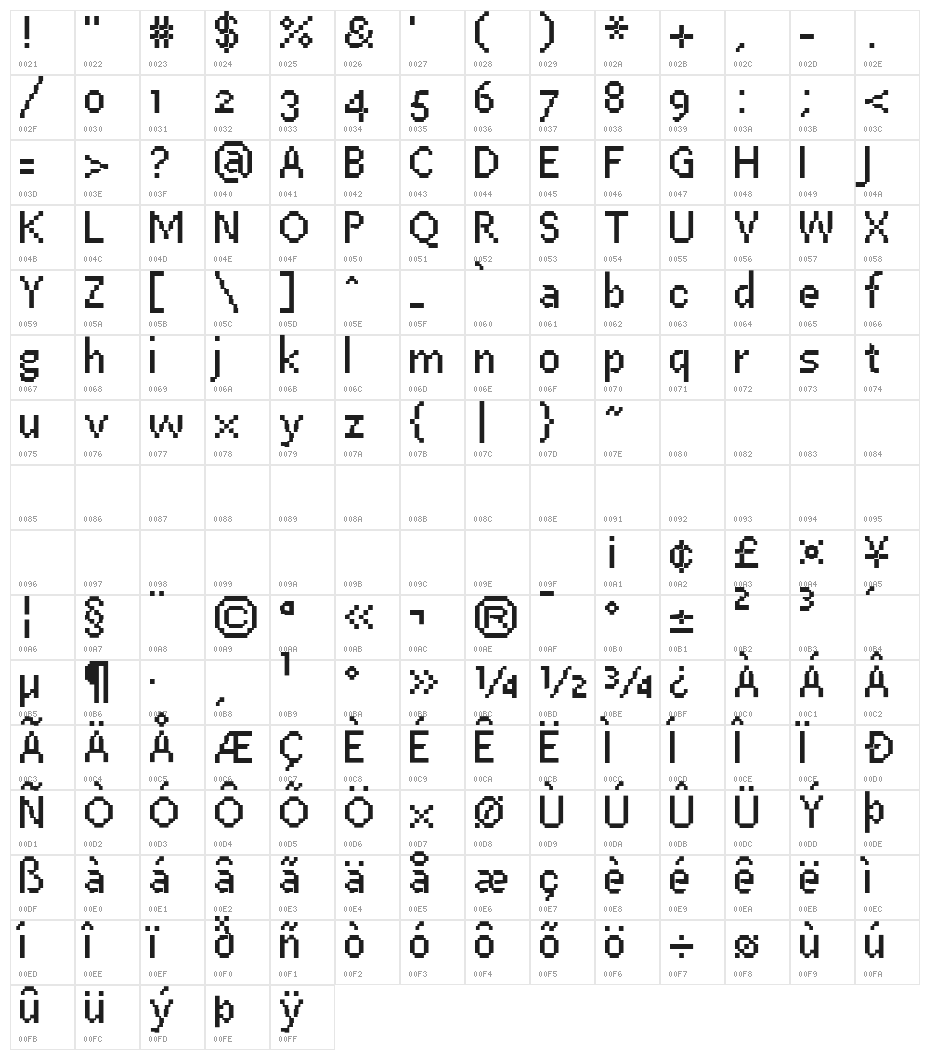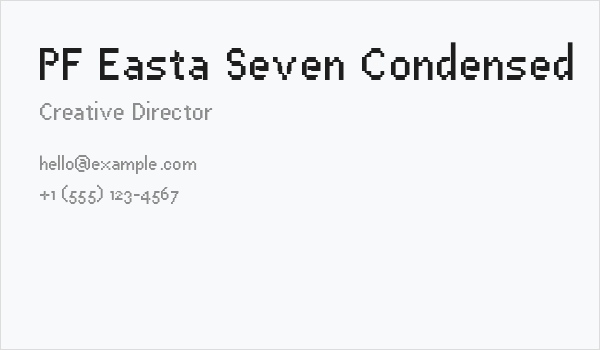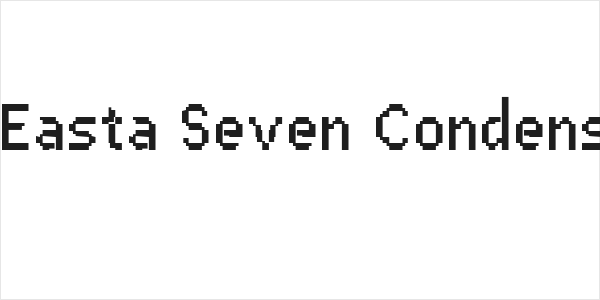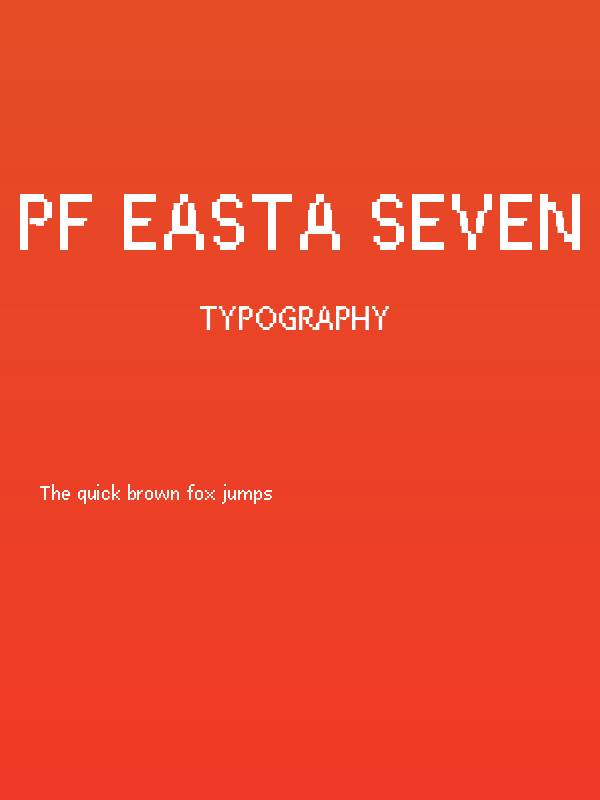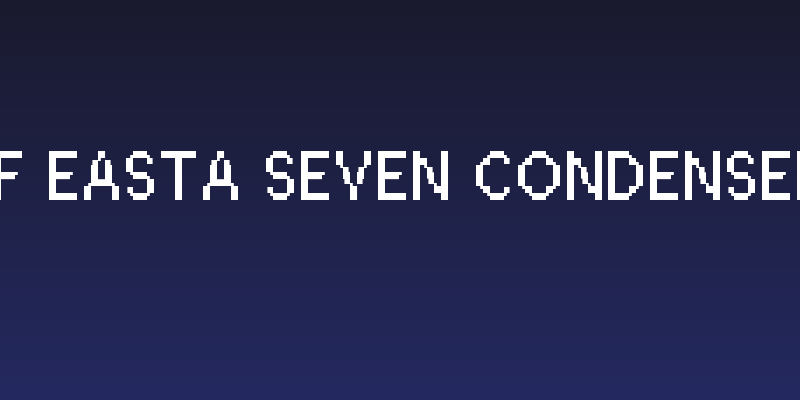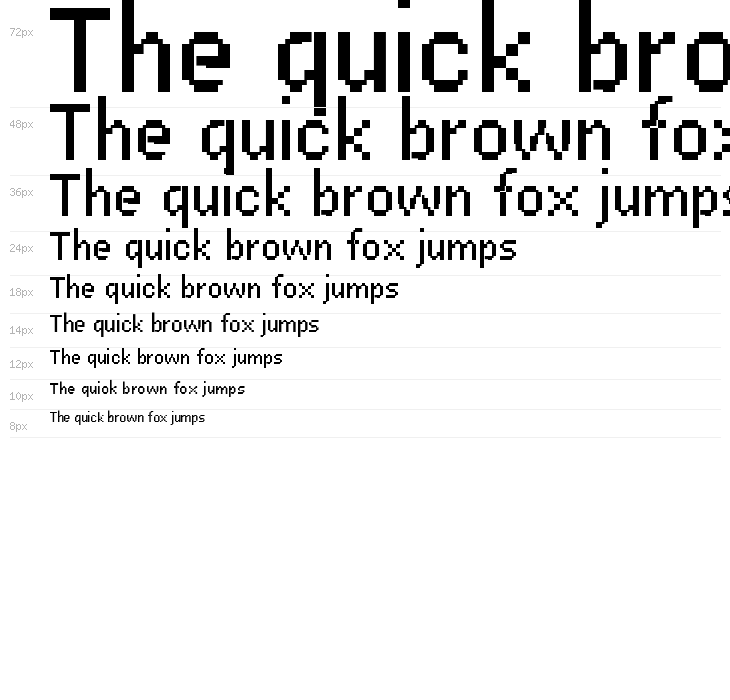
PF Easta Seven Condensed Font
PF Easta Seven Condensed Description
This font features a pixelated, geometric design with a condensed structure, giving it a distinct digital or retro gaming aesthetic. The characters are formed with uniform square blocks, creating a consistent and grid-like appearance. The uppercase and lowercase letters maintain a similar width, enhancing the condensed feel. Numbers and special characters follow the same pixelated style, ensuring visual harmony across all glyphs. The font's simplicity and clarity make it highly legible, even at smaller sizes, while its unique style adds a playful and nostalgic touch.
| Overall Style | Retro, Digital |
| Use Case | Headlines, Logos, Digital Art |
| Proposed Projects | Ideal for video game design, digital art projects, retro-themed posters, and any creative work that requires a nostalgic or digital aesthetic. |